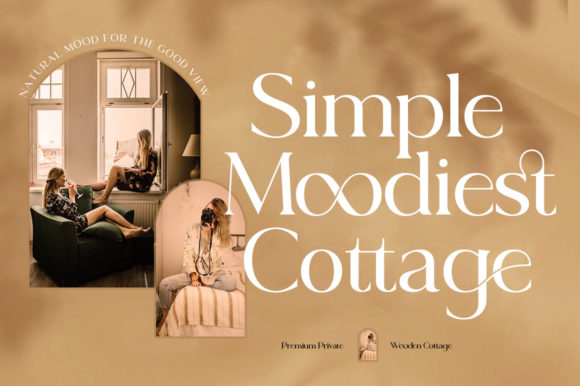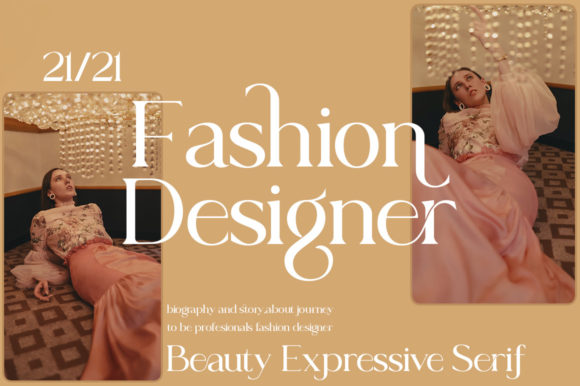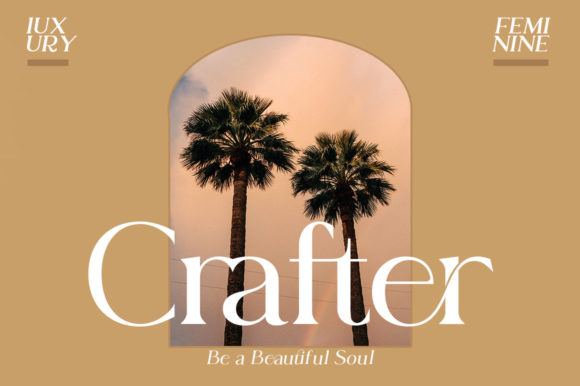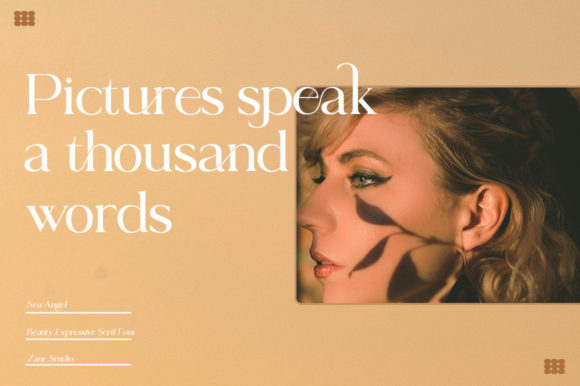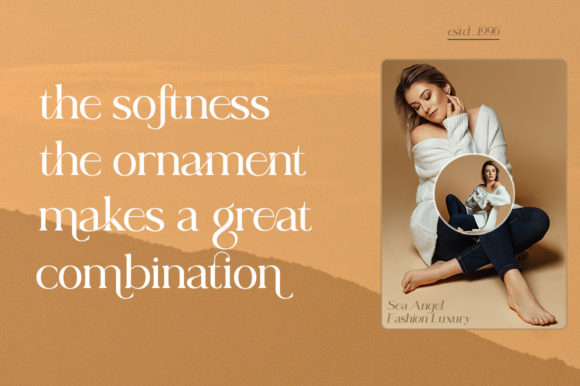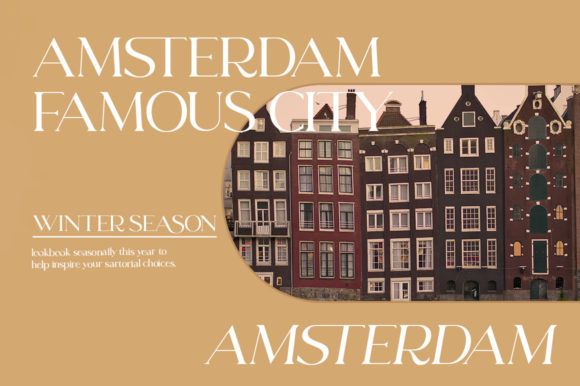
Introduction to Sea Angel Font Font
Fonts play a crucial role in design, and the Sea Angel Font font is a typeface that brings both character and versatility to any project. Whether you’re working on a branding project, a website, or a print design, the Sea Angel Font font offers a unique style that can elevate your work.
Sea Angel is a distinct and elegant serif font.
Key Features of Sea Angel Font Font
Why Choose Sea Angel Font Font?
The Sea Angel Font font is more than just a typeface – it’s a design tool that helps you communicate your message with style and clarity. Its unique character set and versatile design make it suitable for a wide range of applications, from elegant invitations to bold headlines.
With its carefully crafted letterforms and balanced proportions, the Sea Angel Font font ensures readability and visual appeal across all mediums.
What makes Sea Angel Font font special?
The Sea Angel Font font stands out with its unique design, exceptional readability, and versatility across various design applications.